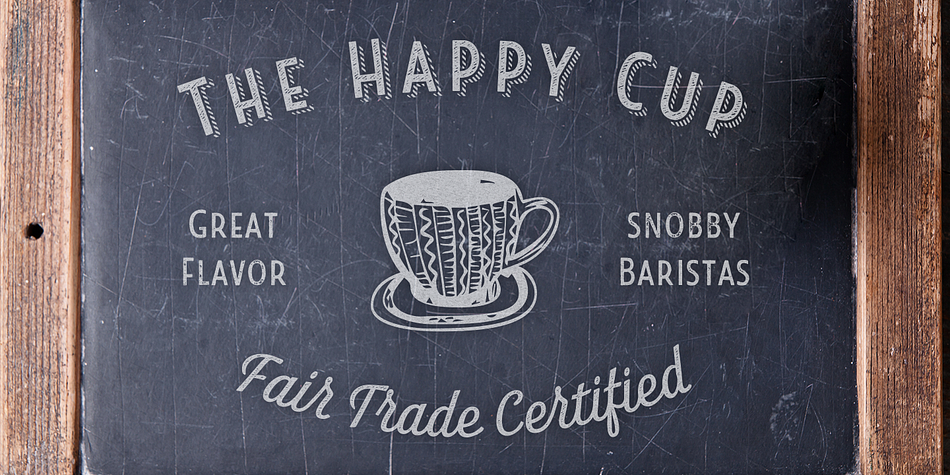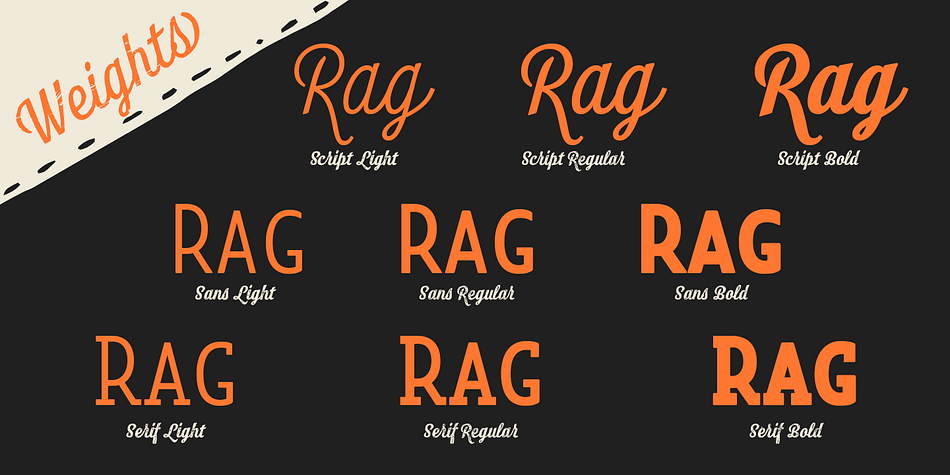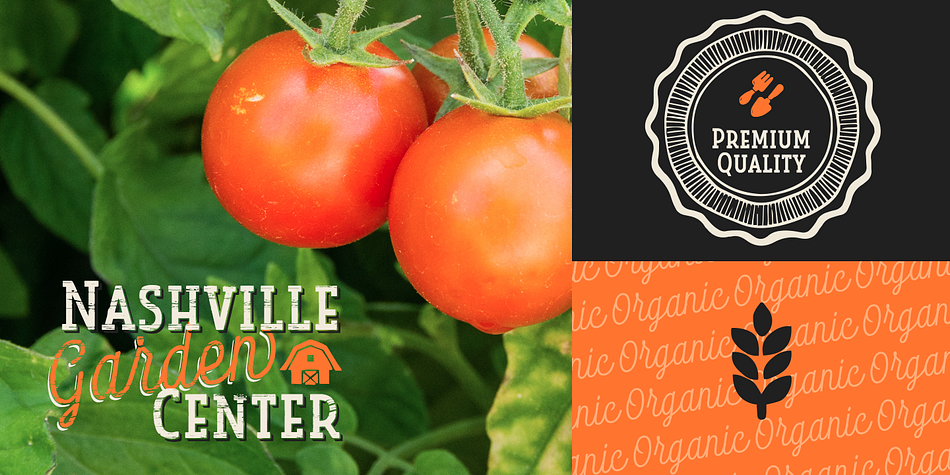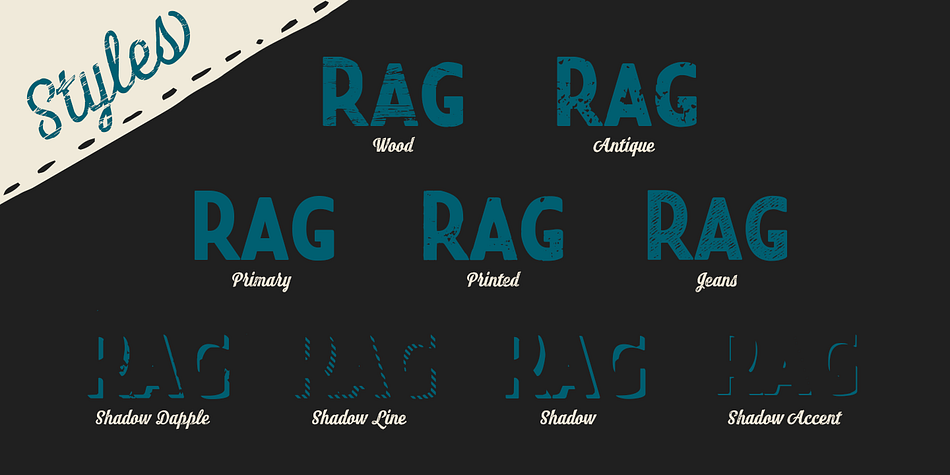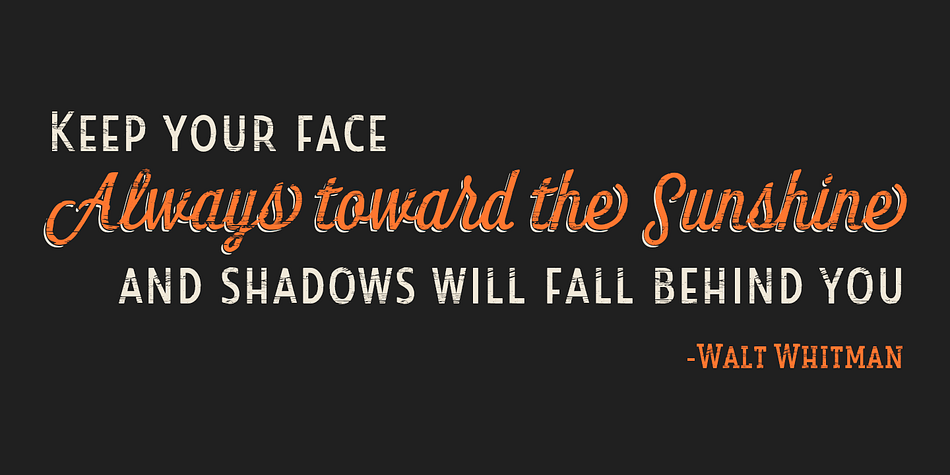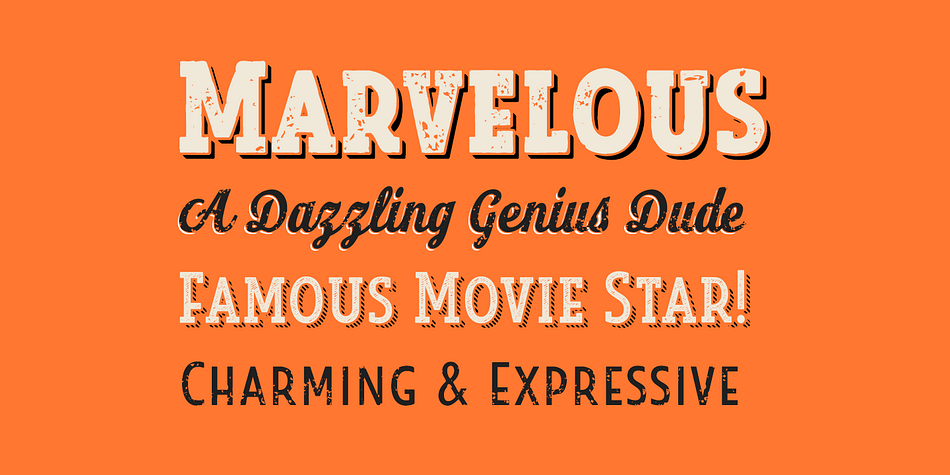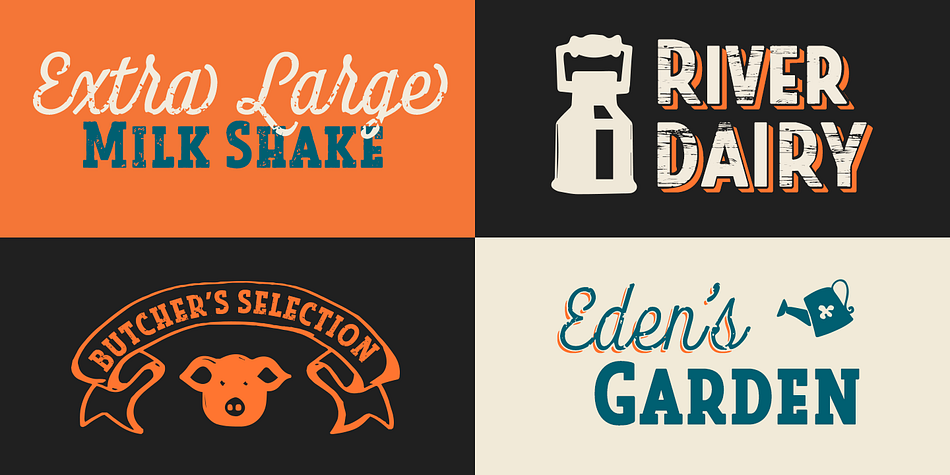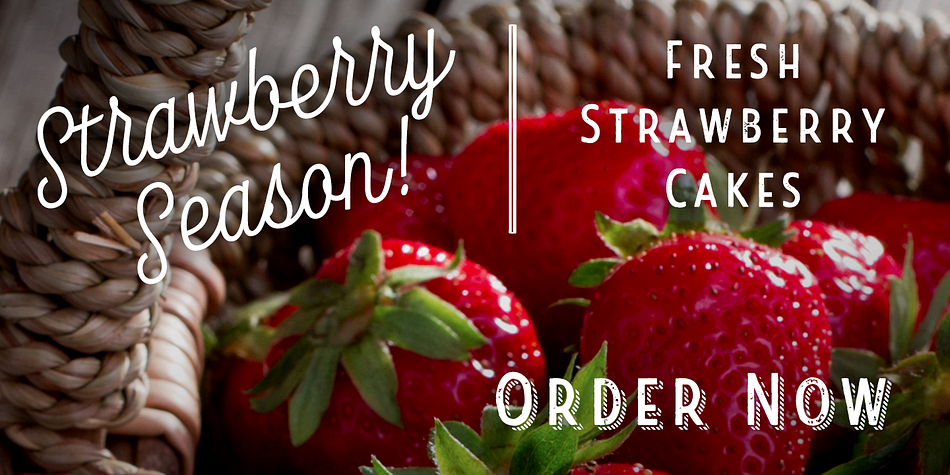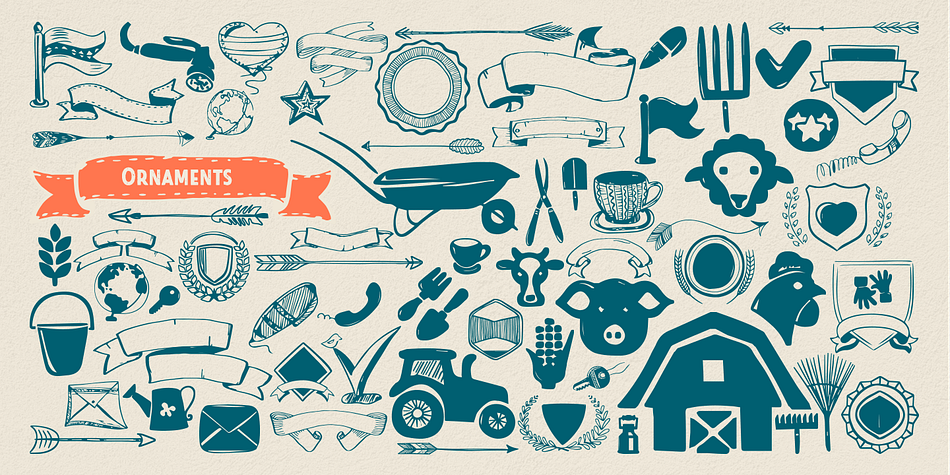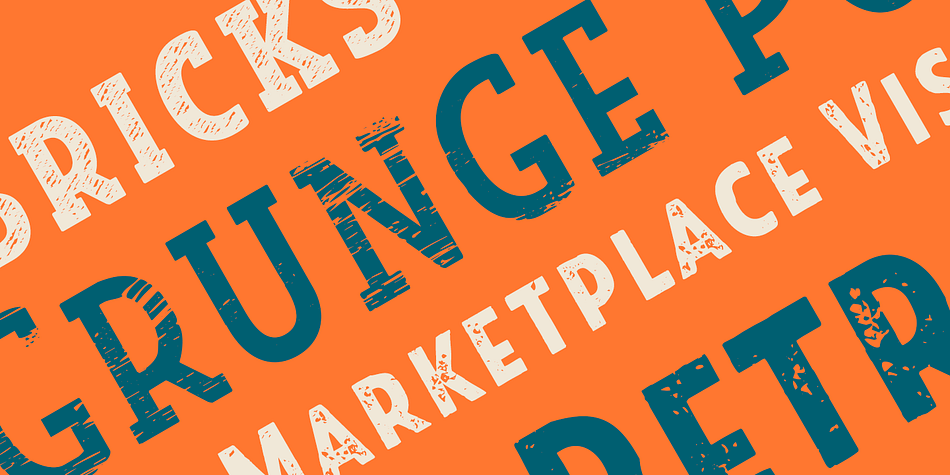
Look Hyperfamily is a multiple classification font collection published by Insigne Design.
Look, folks! From what may just be the vernacular sign capital of the world, Chattanooga, Tennessee, it’s a brand new hyperfamily from Insigne! Look includes three different related fonts, with three weights each. That’s over 70 fonts!
Imagine: you turn onto a stretch of open country road. On the distressed, red background of an old barn wall, a large block of crisp white letters shout out: “See Rock City.” You soon realize this barn is not alone in competing for the passing eye. Far from it, ladies and gentlemen. This is just one of the many pieces of historic, hand-painted advertisements dotting the great Southern United States. Yes, these are the pieces of true Americana—the barns, the roadside signs, the machinery, the soda fountains, and more—that now inspire this splendid new set of three font families.
This new, easily readable type from Insigne digs deep to capture the very heart and passion of this splendid country’s lettering of the post-war era. Look’s compact frame quickly draws the audience to your headline, logo, subheading, or pull quote, working well in those compact spots of text without overpowering your content. You’ll easily put the feeling of those days gone by into every piece with the natural beauty and simple usefulness of the Look hyperfamily.
Each of the individual sub-families incorporates a variety of font weights with distressed attributes. Think Woodtype. Jeans. Antiques, folks. That deep, ingrained texture—that quality that will stand the test of time.
And Look is flexible, too. Take, for example, Look Script. This powerhouse of a font offers thinner weights to give your work an easy-going, down-to-earth design. But bring in those heavier weights, and you’ll have a muscular, assertive font that will go the whole nine rounds.
Combine any of the Look families with Ornaments to really give your layouts a zing. Build an extraordinary design as well with Look’s swashes and alternates. To activate any of these alternates, just click on Swash, Stylistic or Titling Alternates in any OpenType-savvy application, or choose from the Glyph Palette. Explore hundreds of included extras to find that “cherry on top” for your one-of-a-kind project.
Note on SHADOWS: Increase depth and make your designs pop! Add shadows to any of the Look fonts by duplicating the text content layer in place and switching it to its corresponding shadow. Color and offset to taste. Look shadows are offset automatically. In Illustrator, you may need to turn on Em Box Top for proper shadow alignment.